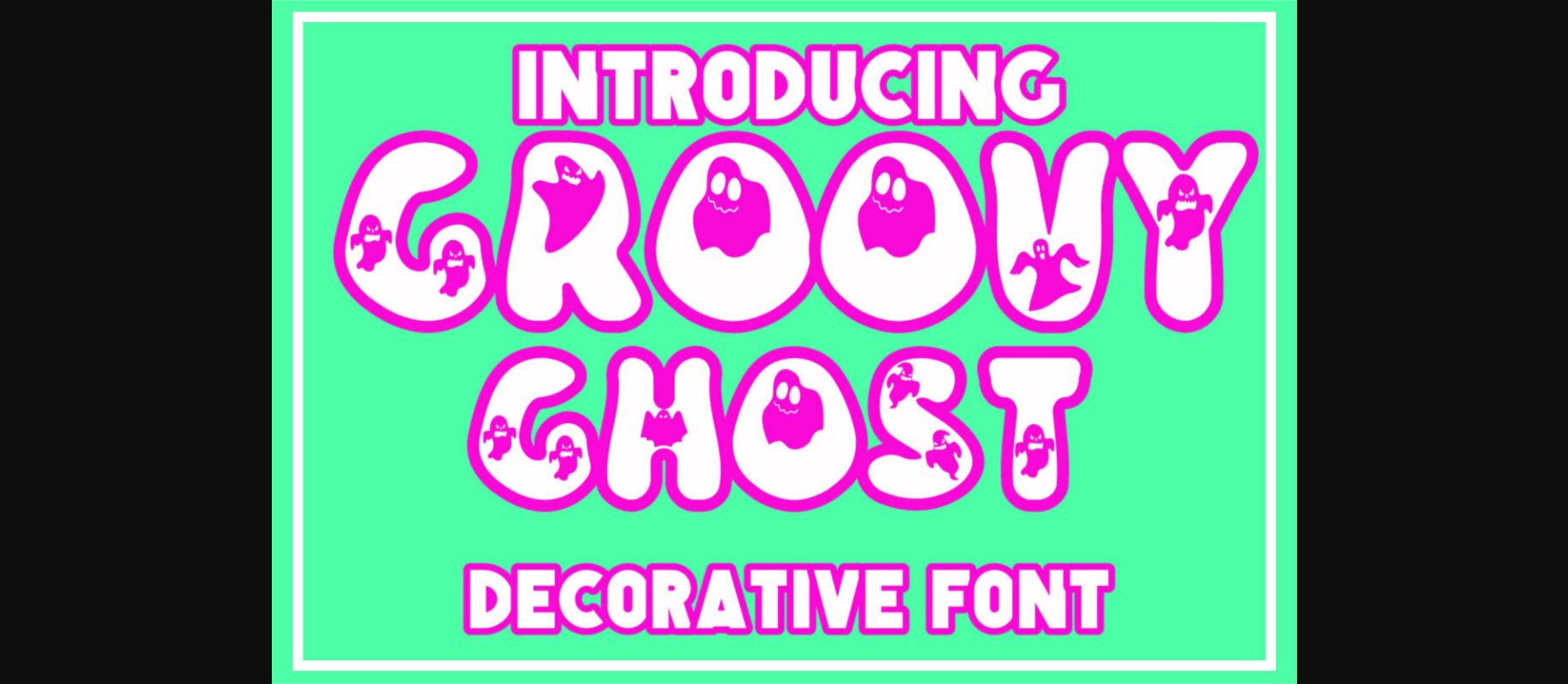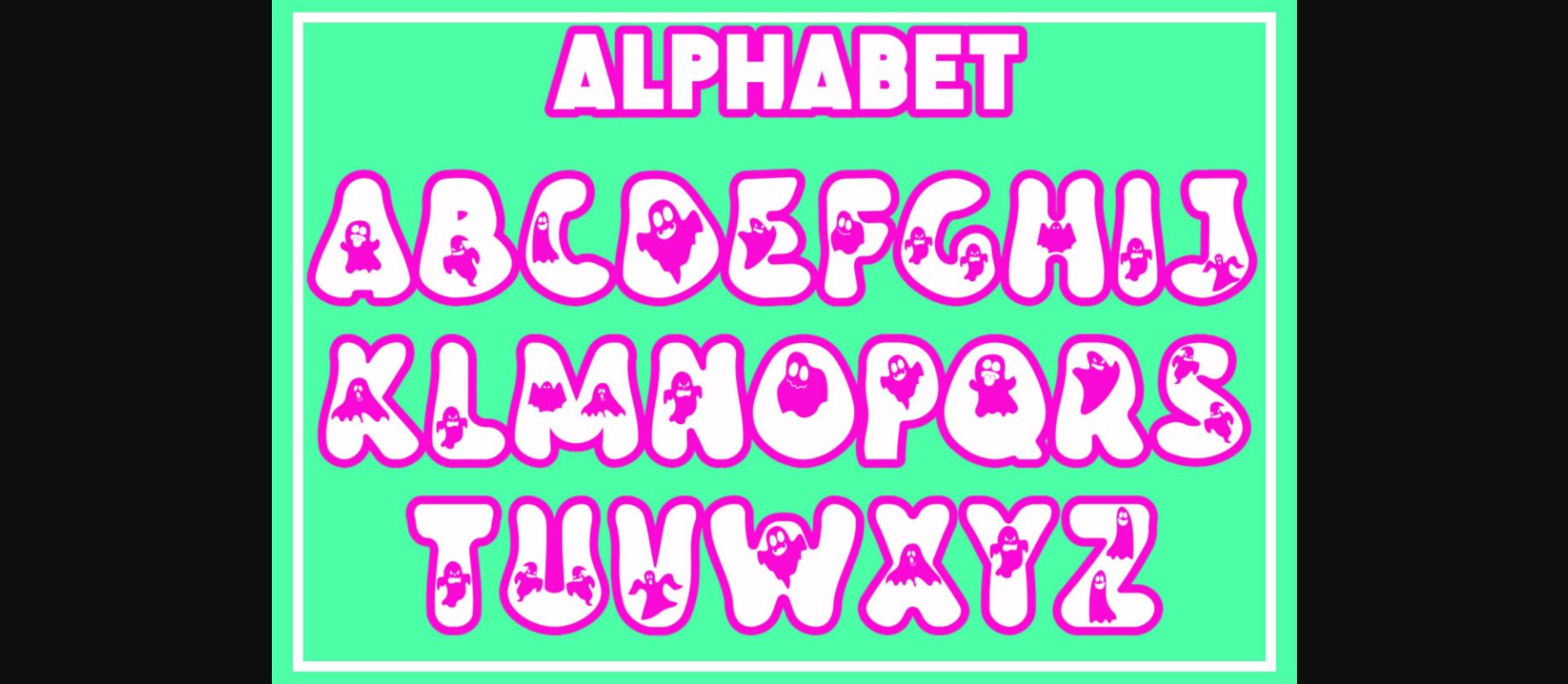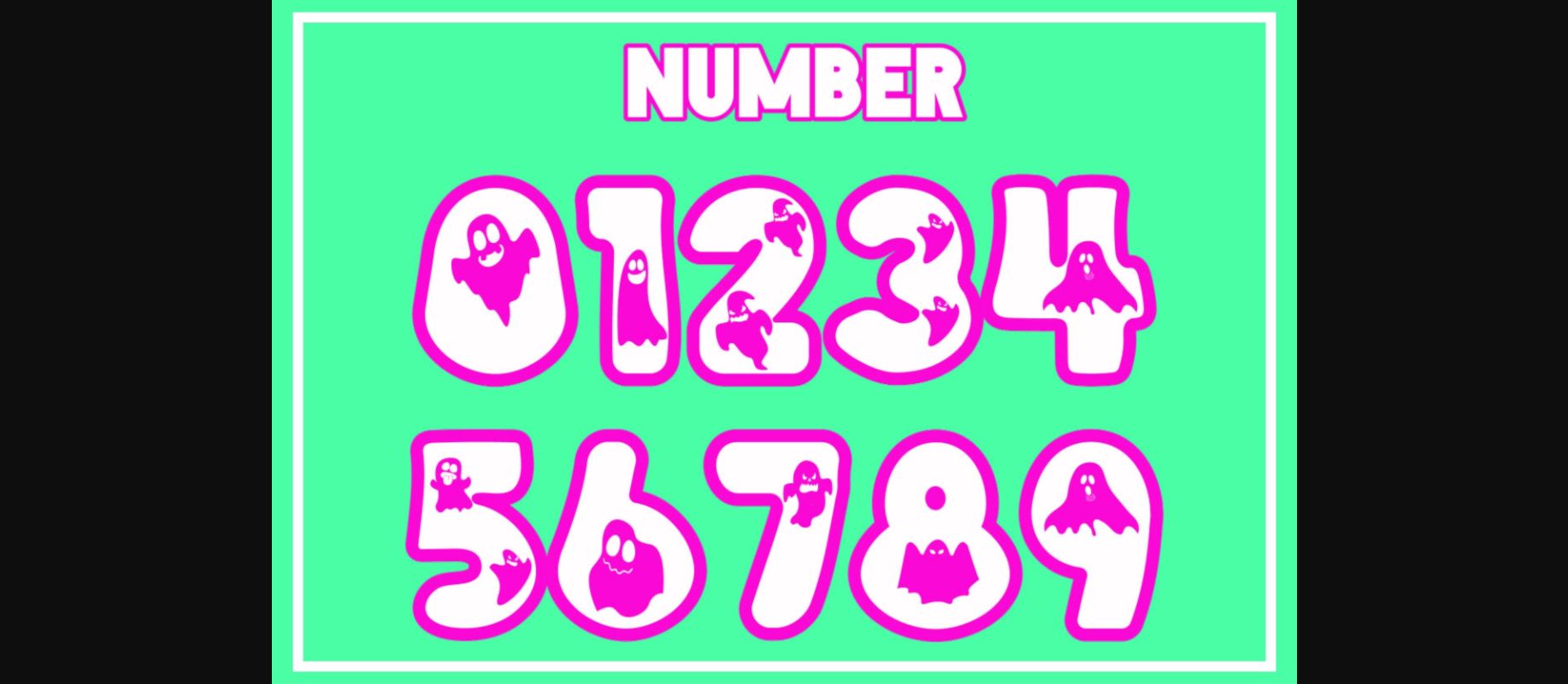
HomeDecorative FontsGroovy Ghost Font Decorative Fonts Groovy Ghost Font FacebookXPinterestWhatsApp 1 of 5 ... Groovy Ghost Font Poster 2... Groovy Ghost Font Poster 3... Groovy Ghost Font Poster 4... Groovy Ghost Font Poster 5... About Groovy Ghost Font Groovy Ghost is a fun and dramatic decorative display font. Add it to your October Halloween party designs and notice how it makes them stand out! DOWNLOAD NOW People also explored Billistone Font Merry Christmas Font Casstino Font Sparkling Chrismas Font Font Stefany Font We Camp Font Emelind Font Colour Happy Font Ballon Font 349 0 TagsGroovy Ghost Font Previous articleSpiky Spiderweb FontNext articleCherith Font LEAVE A REPLY Cancel reply Comment: Please enter your comment! Name:* Please enter your name here Email:* You have entered an incorrect email address! Please enter your email address here Website: Save my name, email, and website in this browser for the next time I comment. Personal Use Free Rumaniaya Personal Use Free Read more about this font Haris Wood Personal Use Free Read more about this font Hiters Personal Use Free Read more about this font Stereofidelic Personal Use Free Read more about this font BLOG How to Install and Use Fonts on Windows, macOS, and Web Projects How to Install and Use Fonts on Windows, macOS, and Web Projects Fonts are a crucial part of design and branding. Whether you’re designing a... The 10 Best Handwriting Fonts to Add Personality to Your Designs Transform Your Website: Elevate Your Typography with 7 Best Web Font Generators To increase your work productivity, choose the most readable fonts.